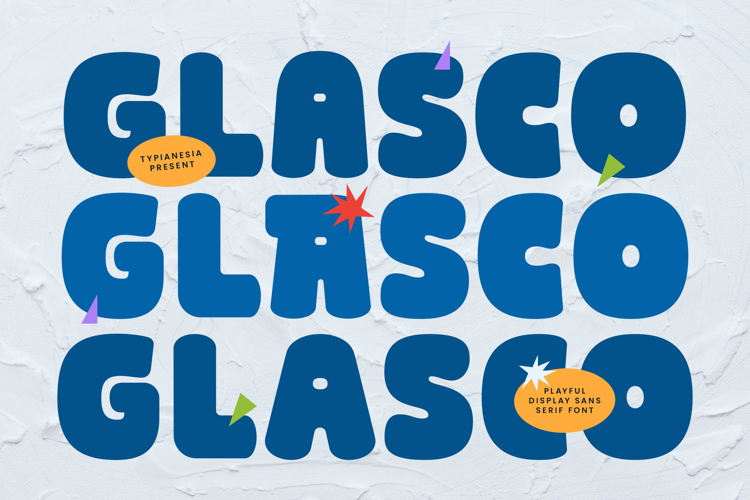
Glasco - Playful & Bold Rounded Sans Serif Font
Glasco - Playful & Bold Rounded Sans Serif Font - Modern Chunky Fun Branding Display Font
Glasco is a playful and bold display sans serif font that brings a cheerful and friendly vibe to any project. Its chunky, bubble-like letterforms give it a distinct and charming personality, making it an excellent choice for branding food and beverage products, children's books, advertising campaigns, logos, posters, merchandise, fun-themed campaigns and any project that requires a sense of joy and modern style. With its full set of ligatures, punctuation, and multilingual support, Glasco offers great versatility. This font is designed to be eye-catching and memorable, ensuring your any project stands out.